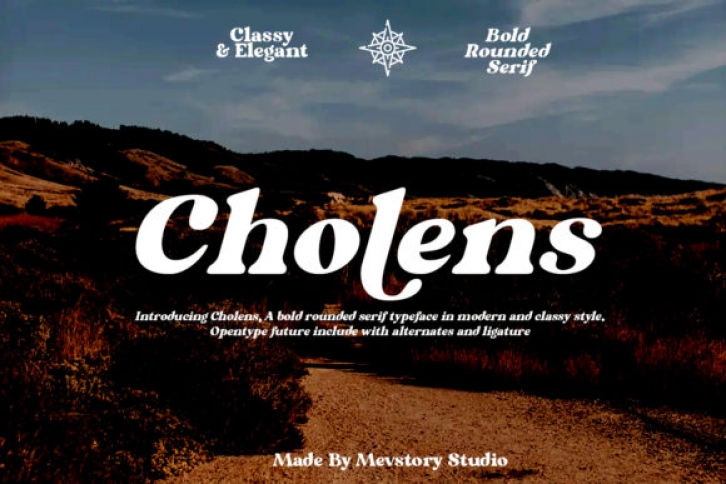
Cholens is a round lettered, elegant serif font. Suitable to a wide variety of designs due to its neat and simple style, Cholens has the potential to become your favorite go-to font, no matter the occasion!